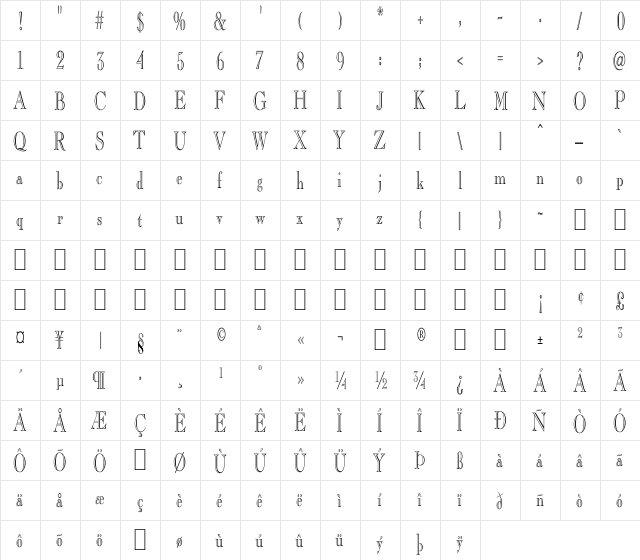
BD Engraved Narrow Regular
Design Context for BD Engraved Narrow Typeface
BD Engraved Narrow is built around its visual character rather than neutral utility — its distinctive forms are designed to make an impression at display sizes. Its bold stroke weight gives it real presence on the page.
Font Pairing: Pair with a clean neutral sans-serif for body copy to let BD Engraved Narrow's character lead without overwhelming the composition.
Pro Tip: Use BD Engraved Narrow exclusively at display sizes — it was designed to be seen, not read at length. Let a neutral companion handle body copy.